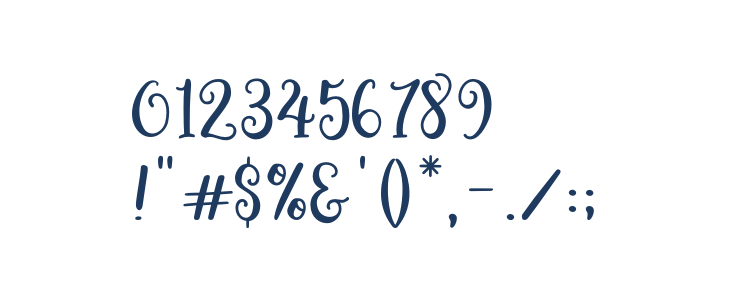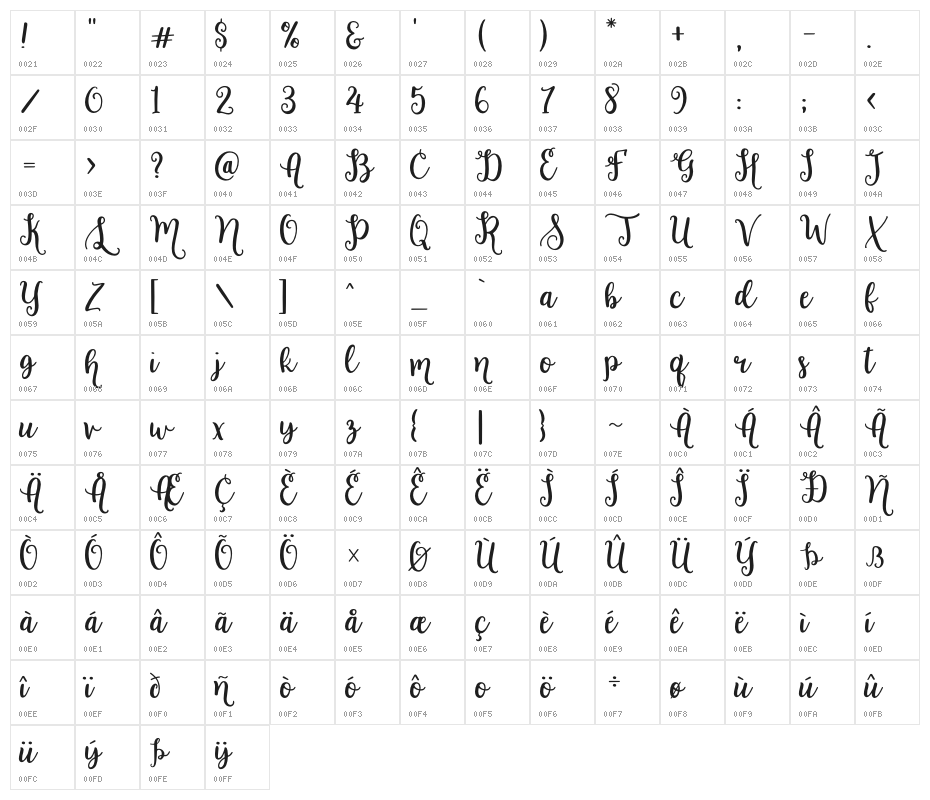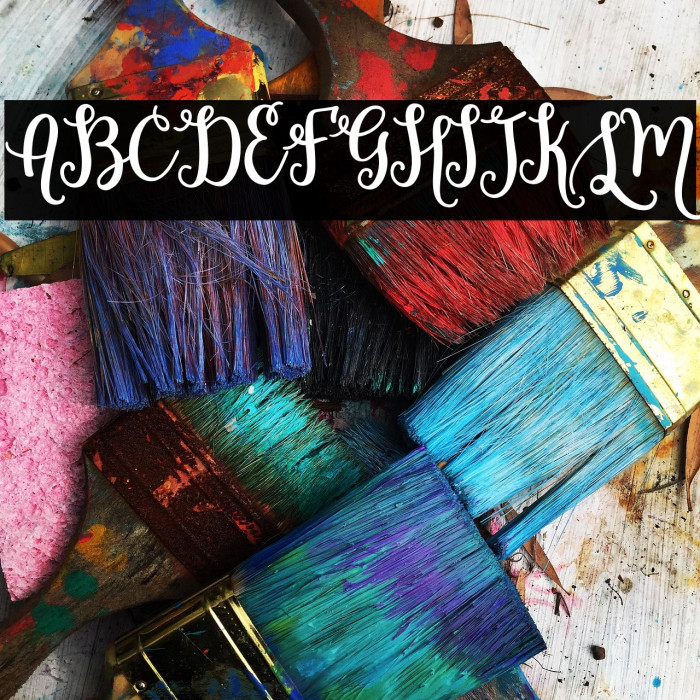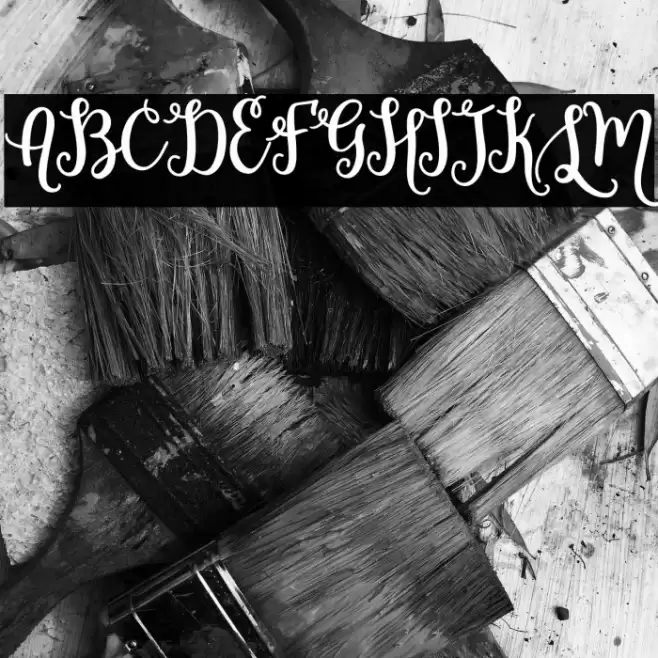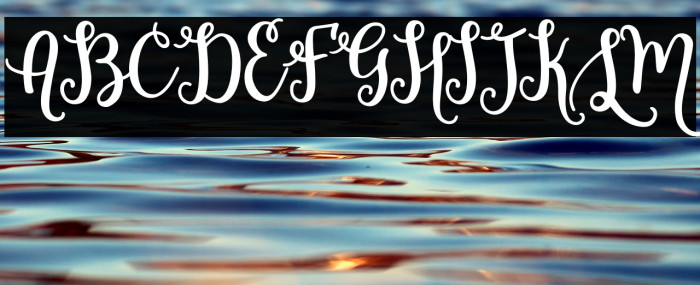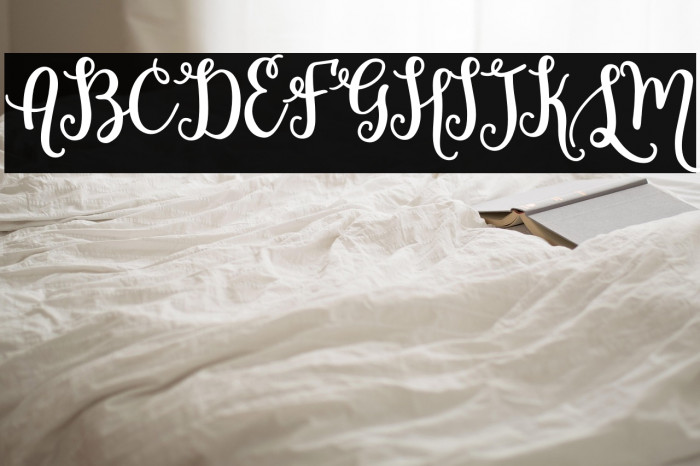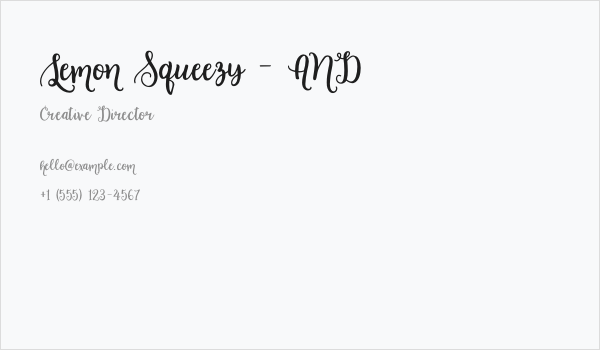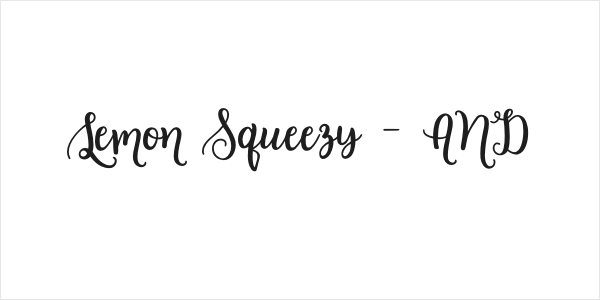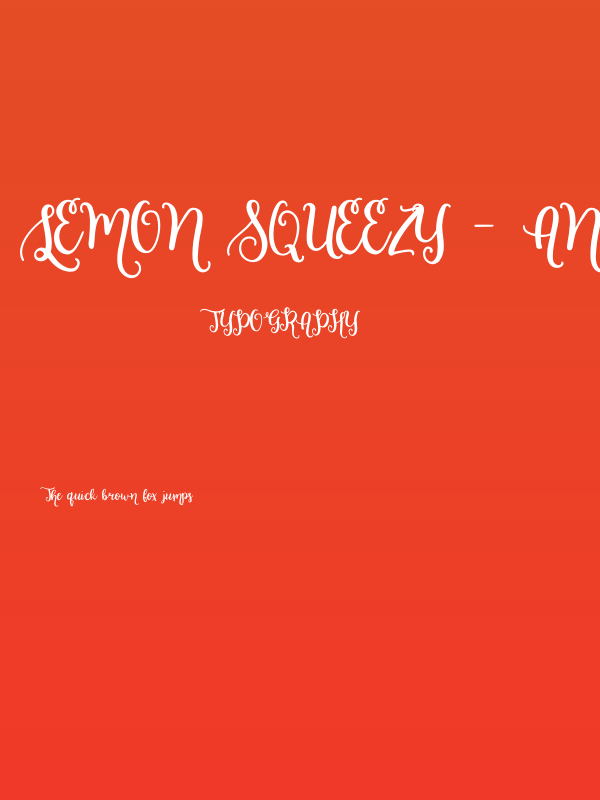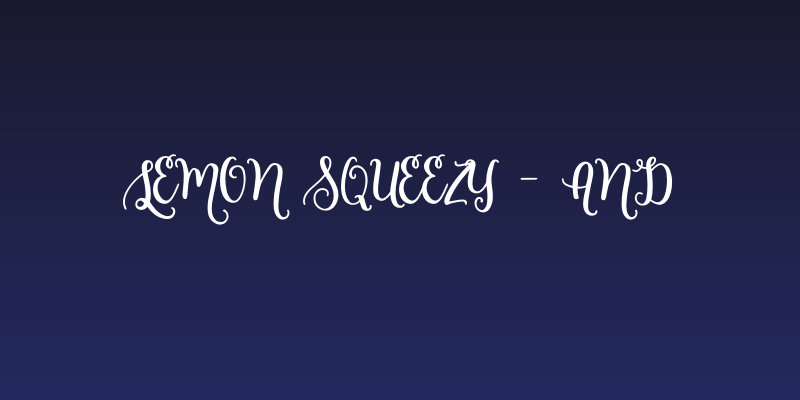
Lemon Squeezy - AND Font
Lemon Squeezy - AND Description
This font exudes a playful and whimsical charm, characterized by its curly and flowing letterforms. The uppercase letters are bold and feature unique loops and swirls, adding a decorative flair. The lowercase letters maintain a consistent style, with smooth curves and a slightly exaggerated height, enhancing readability while retaining a fun aesthetic. The numerals are equally playful, with distinctive shapes that complement the overall style. Special characters are creatively designed, fitting seamlessly into the font's lively theme. This font's artistic nature makes it suitable for projects that require a touch of creativity and joy.
| Proposed Projects | Ideal for greeting cards, children's books, playful branding, and creative posters. |